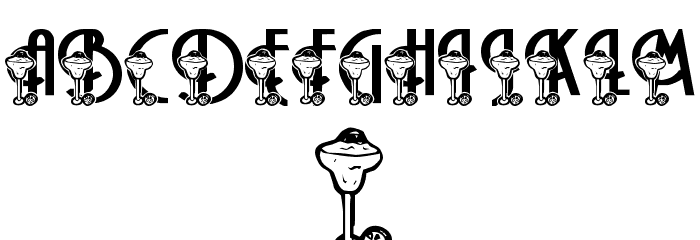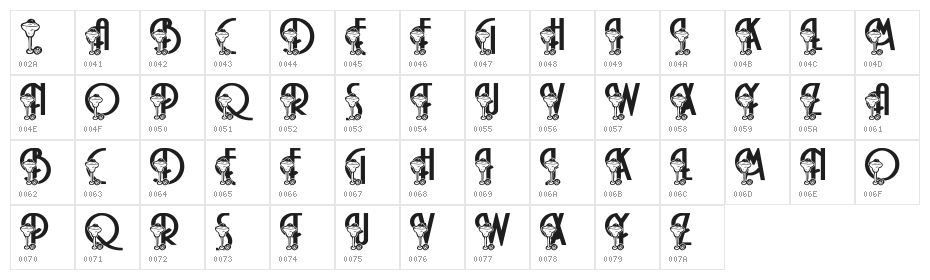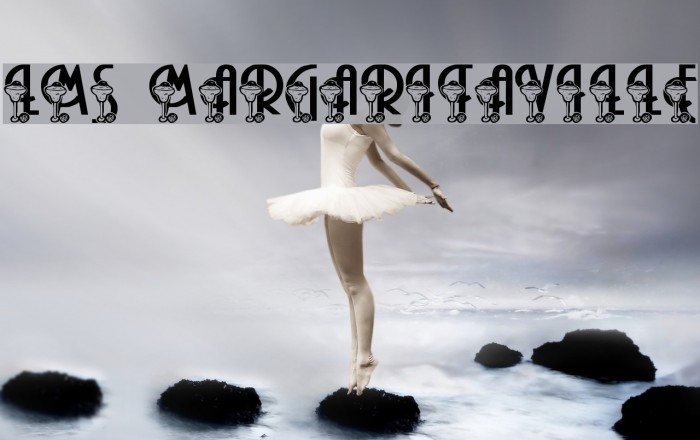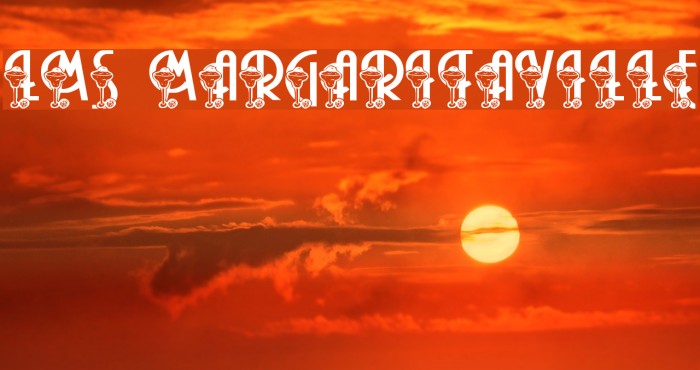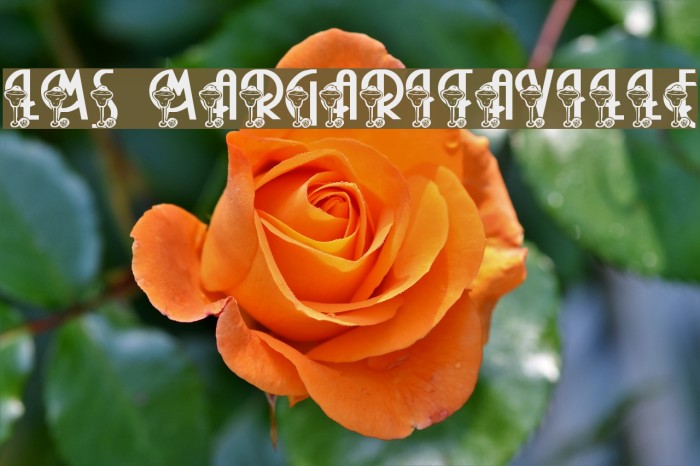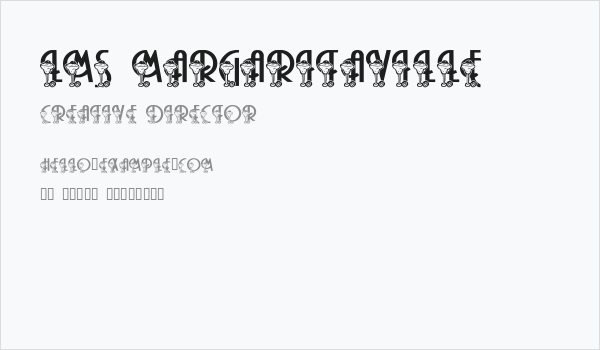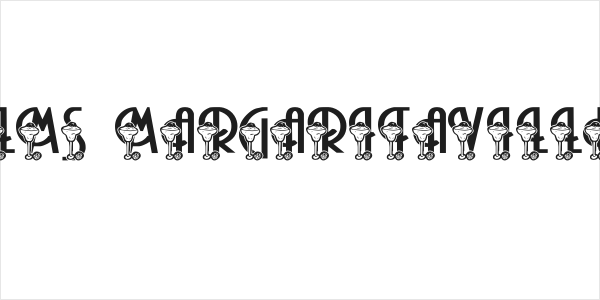
LMS Margaritaville Font
LMS Margaritaville Description
This font is a playful and whimsical design that incorporates a unique character into each letter. The letters are bold and feature a cartoonish figure integrated into the structure, adding a sense of fun and creativity. The design is highly decorative, making it stand out with its distinctive style. The font is perfect for projects that require a lighthearted and entertaining touch. Its boldness and unique character integration make it ideal for eye-catching designs.
| Overall Style | Playful, Whimsical, Decorative |
| Use Case | Logos, Posters, Invitations |